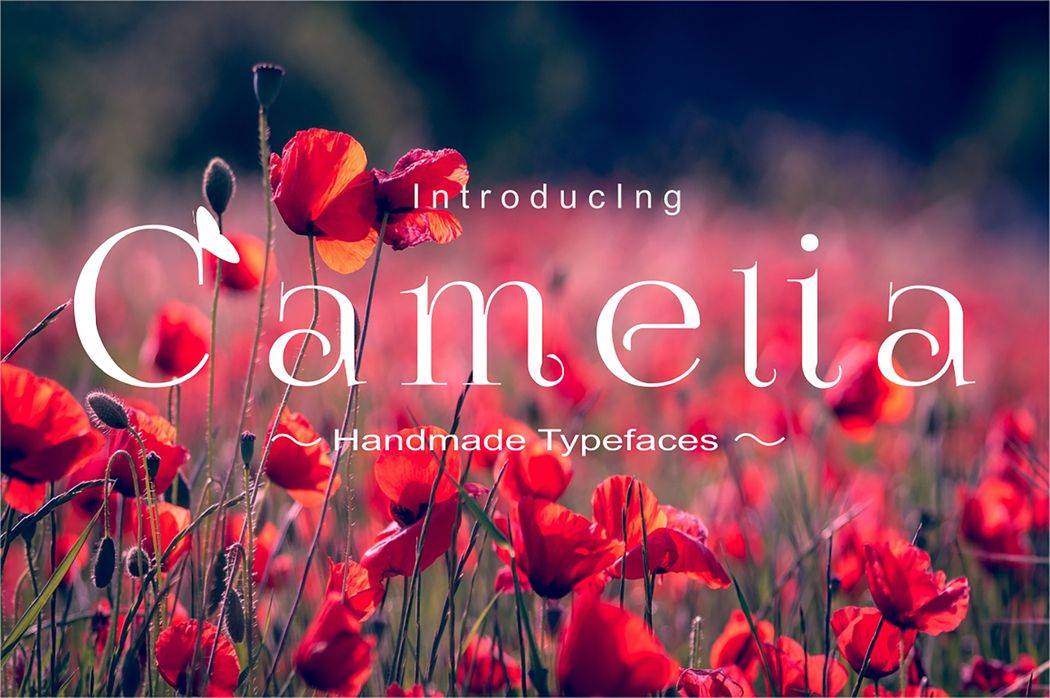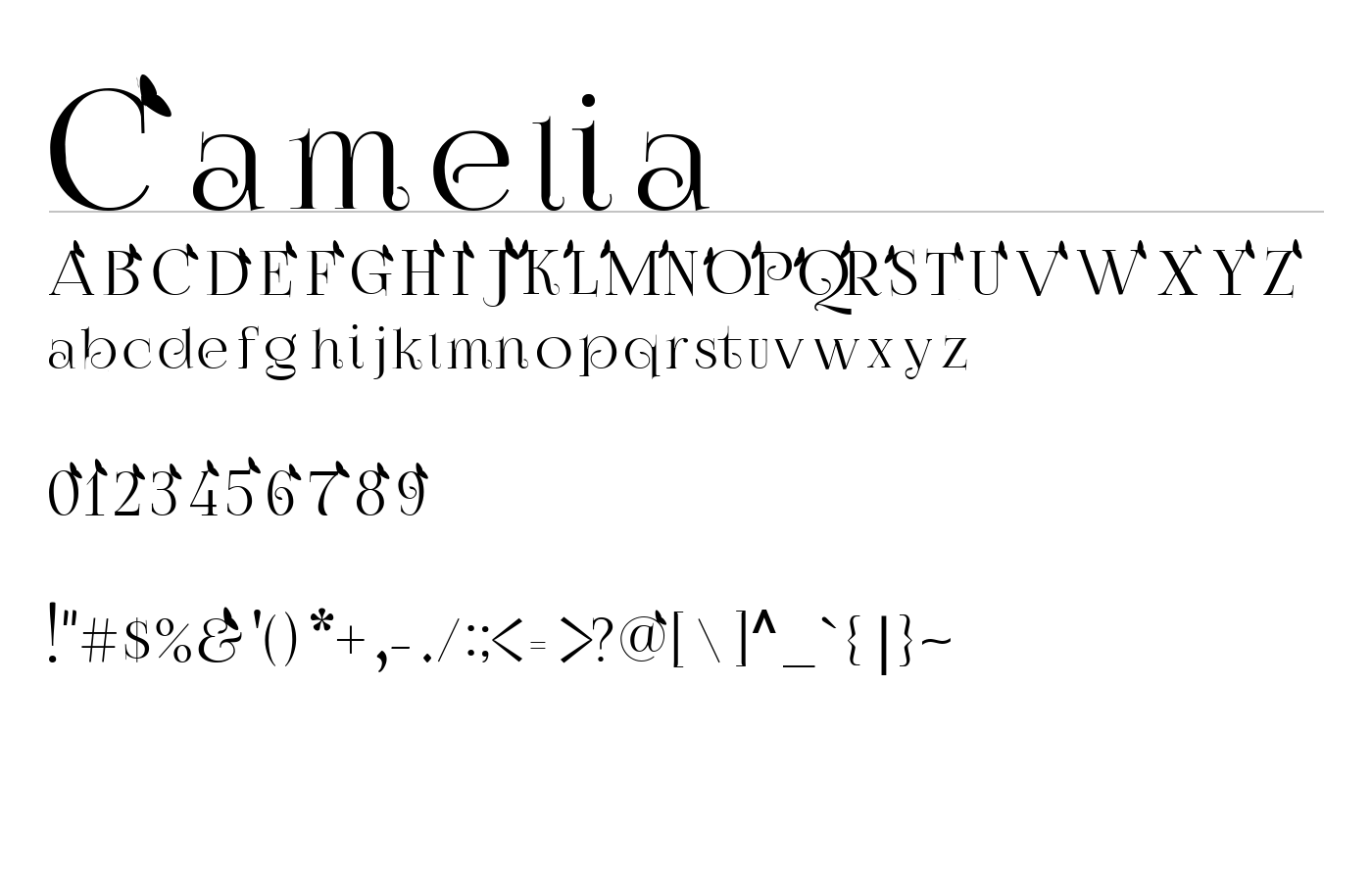
Camelia is an elegant serif font with a delicate and artistic flair, featuring high contrast between thick and thin strokes and unique decorative details like curled terminals and swashes. Its slender, tall letterforms with bracketed serifs create a refined, vintage-inspired look, perfect for luxury branding, invitations, and stylish editorial headlines. This font works best where a sophisticated and distinctive style is desired to convey beauty and creativity.
Camelia Font
About Camelia Font